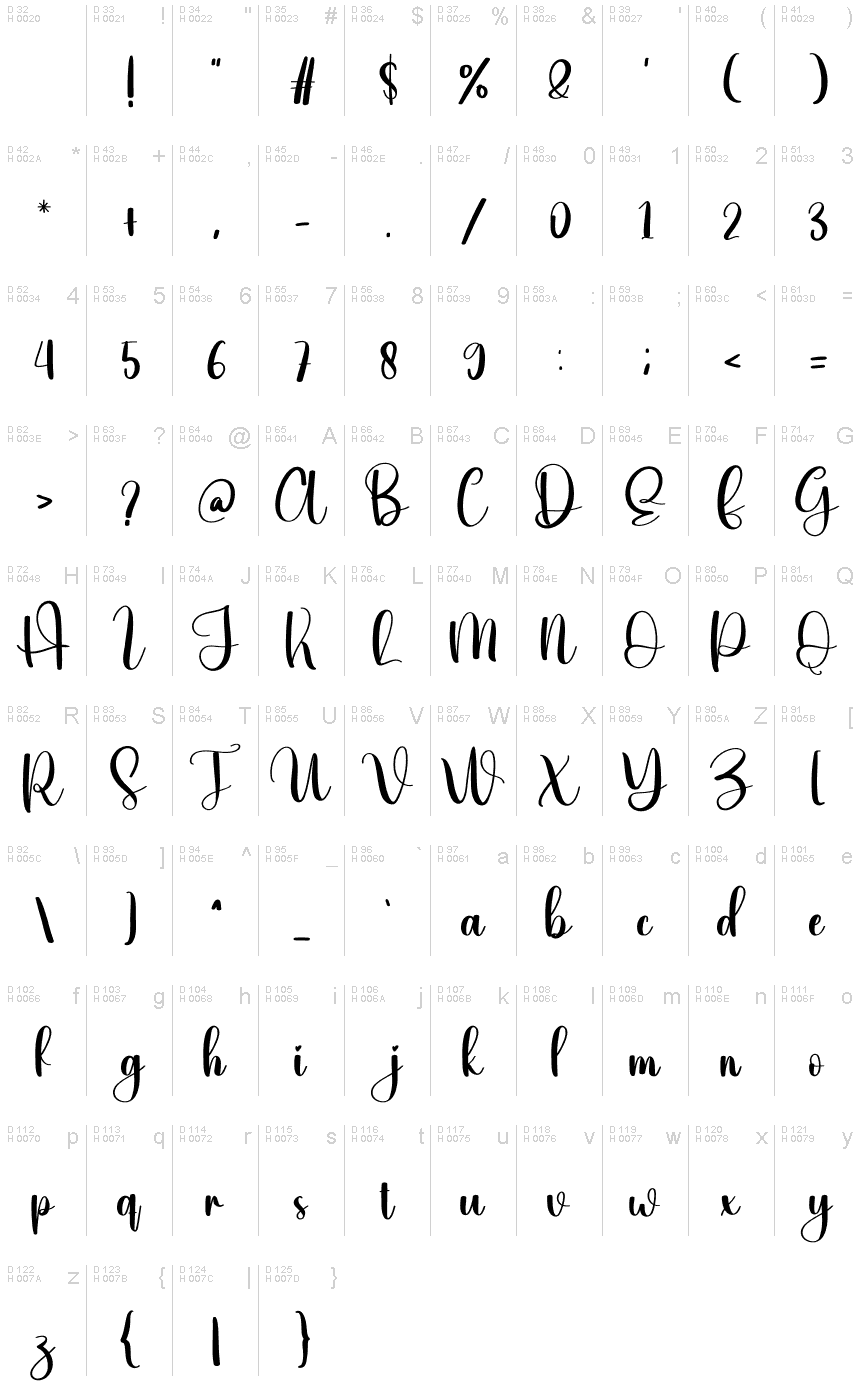
Hear
Dive into the world of organic typography with Hear, a handwritten font crafted by Scratchones. With its fluid curves and natural variability in stroke weight, Hear brings a touch of personal flair to any project. Its aesthetic appeal lies in the perfect balance between readability and artistic expressiveness, making it an ideal choice for designs that require a human touch.
The Hear font boasts an informal yet elegant style that evokes the charm of hand-penned letters. Each character is imbued with individuality, as if jotted down with a smooth ink pen. This handwritten style is versatile enough for everything from heartfelt invitations to branding materials that aim to establish a relatable and approachable identity.
Embrace Hear's potential to enhance your creative endeavors with its stylishly casual vibe, whether you're composing eye-catching social media graphics or adding character to editorial content. Let this Scratchones creation be your go-to for infusing warmth and authenticity into your designs.